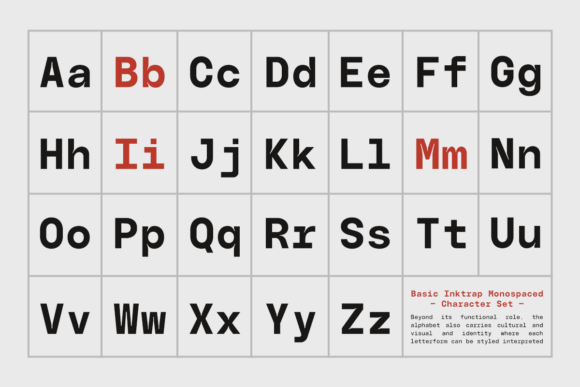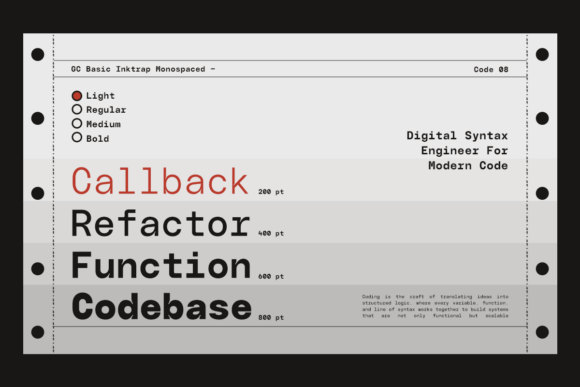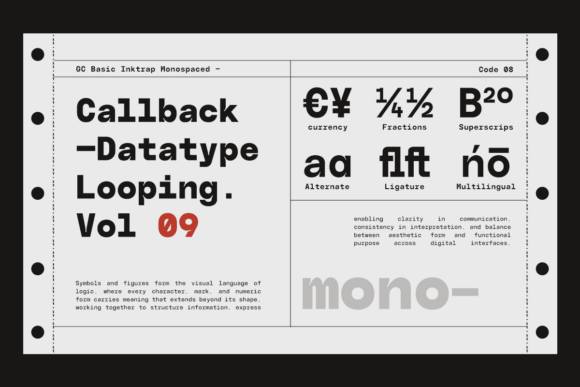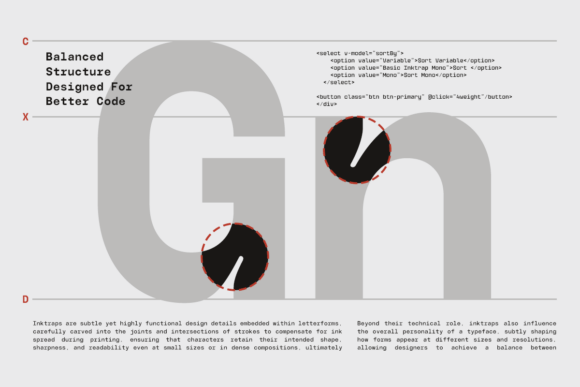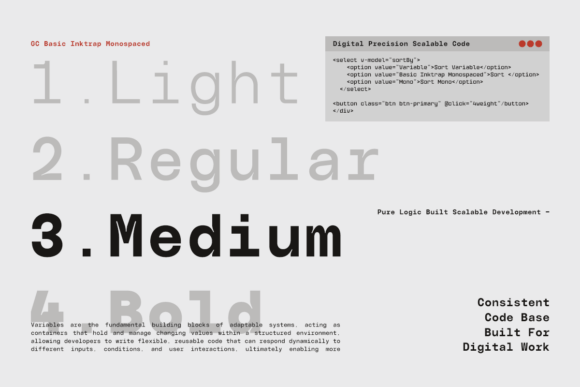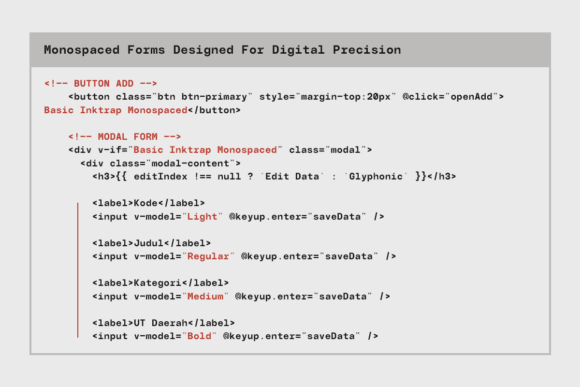
Discover the Power of Basic Inktrap Font: A Modern Monospaced Typeface for Precision and Clarity
In the world of typography, the right font can make all the difference in communicating your message effectively. For designers, crafters, and anyone looking for a clean and technical typographic voice, Basic Inktrap is a game-changer. This contemporary monospaced typeface is designed with precision, clarity, and structured visual rhythm in mind, making it perfect for modern digital communication.
The Design Behind Basic Inktrap
Basic Inktrap is built with functional inktrap engineering and uniform character spacing, which sets it apart from other monospaced typefaces. The bold monospace construction, sharp geometry, and optimized inktrap details create a balanced and highly readable appearance. The consistent letter widths and refined cuts make it an ideal choice for coding visuals, interface design, editorial systems, tech branding, and modern grid-based layouts.
Key Features of Basic Inktrap
- Monospaced Construction: Basic Inktrap’s monospaced design ensures that each character takes up the same amount of horizontal space, making it perfect for coding and other applications where alignment is crucial.
- Functional Inktrap Engineering: The inktrap design feature helps to prevent ink from bleeding or spreading on certain paper types, ensuring that the text remains crisp and clear.
- Uniform Character Spacing: The uniform spacing between characters creates a clean and technical look, making it ideal for digital communication.
- Sharp Geometry: The sharp geometric lines and curves create a modern and sleek appearance, perfect for tech branding and modern design projects.
- Optimized Inktrap Details: The optimized inktrap details, such as consistent letter widths and refined cuts, enhance the overall readability and aesthetic of the font.
Use Cases for Basic Inktrap
Basic Inktrap is a versatile font that can be used in a variety of applications, including:
- Coding Visuals: The monospaced design and uniform character spacing make Basic Inktrap perfect for coding and programming applications.
- Interface Design: The clean and technical look of Basic Inktrap makes it an excellent choice for interface design, including mobile and web applications.
- Editorial Systems: The font’s clarity and readability make it suitable for editorial systems, such as newspapers, magazines, and books.
- Tech Branding: The modern and sleek appearance of Basic Inktrap makes it perfect for tech branding and marketing materials.
- Modern Grid-Based Layouts: The font’s structured system and uniform character spacing make it an excellent choice for modern grid-based layouts.
Benefits of Using Basic Inktrap
By using Basic Inktrap, designers and crafters can benefit from:
- Improved Readability: The font’s clear and technical design makes it easy to read, even in small sizes.
- Enhanced Alignment: The monospaced design and uniform character spacing ensure that text is aligned perfectly, making it perfect for coding and other applications where alignment is crucial.
- Modern Aesthetic: The font’s sleek and modern appearance makes it perfect for modern design projects and tech branding.
- Versatility: Basic Inktrap can be used in a variety of applications, from coding and interface design to editorial systems and tech branding.
In conclusion, Basic Inktrap is a powerful and versatile font that is perfect for designers, crafters, and anyone looking for a clean and technical typographic voice. Its unique design features, such as functional inktrap engineering and uniform character spacing, make it an excellent choice for modern digital communication. With its wide range of use cases and benefits, Basic Inktrap is a font that is sure to take your design projects to the next level.